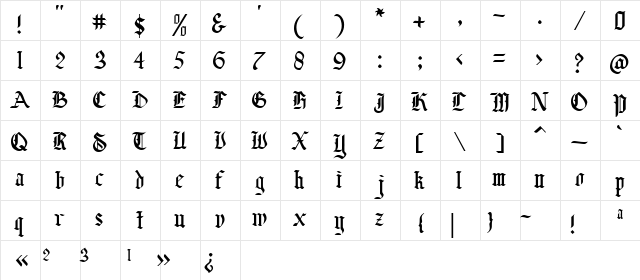
Baliga Blackletter Regular
Design Context for Baliga Blackletter Typeface
Baliga Blackletter draws on the rich tradition of blackletter calligraphy, with dense, angular strokes that evoke medieval manuscripts and old-world craftsmanship.
A natural fit for music packaging, gothic editorial design, and any project that needs historical weight.
Font Pairing: Pair with a clean neutral sans-serif for body copy to let Baliga Blackletter's character lead without overwhelming the composition.
Pro Tip: Reserve Baliga Blackletter for display and logo use — pair it with a clean sans-serif for body copy to prevent the composition from feeling oppressive.